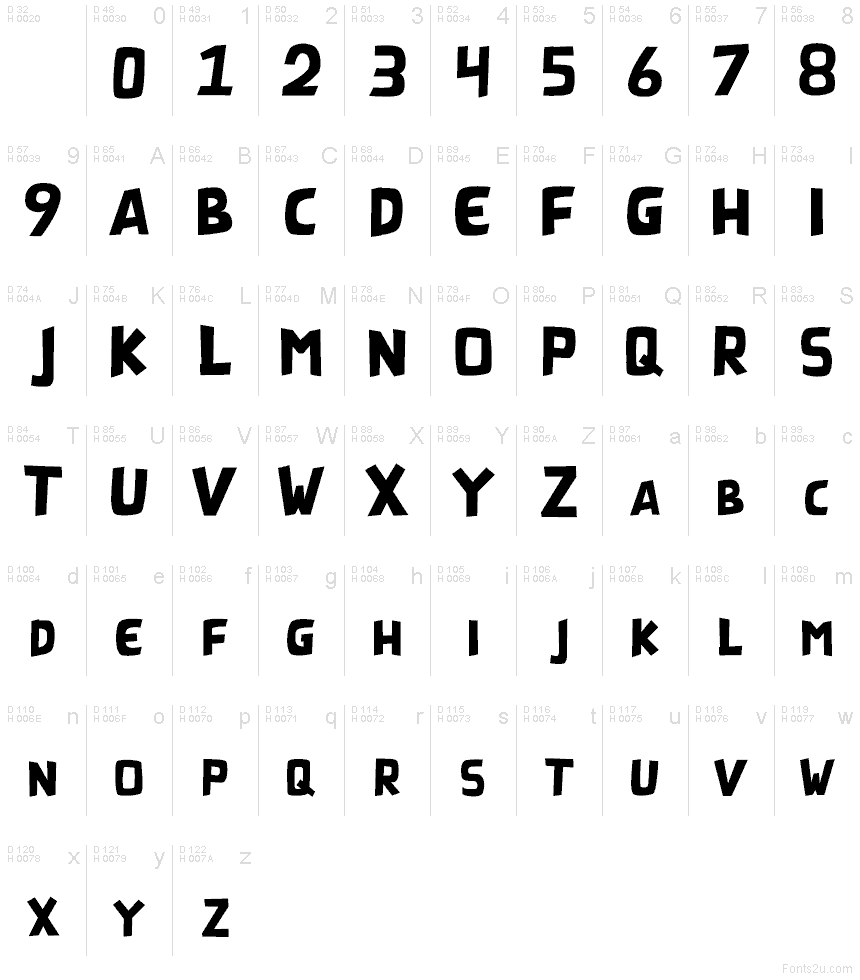
YELLOTONE REGULLAR
Yellotone font by Treewant is a cartoon display font with a fun-loving design. It has bold letters that would immediately stand out and the lack of excessive detail which gives it a light-hearted tone. This simple yet powerful look makes Yellotone perfect for posters, book covers, event invites, product labels, packaging boxes, banners, social media posts and stories.